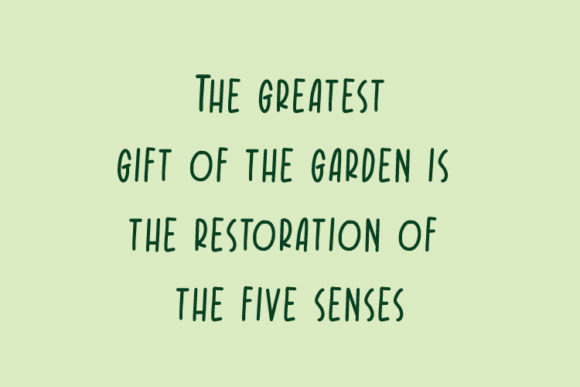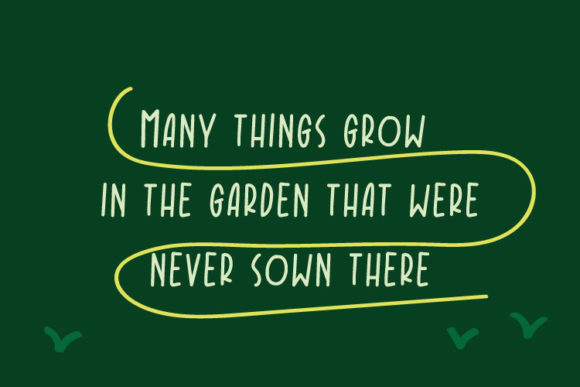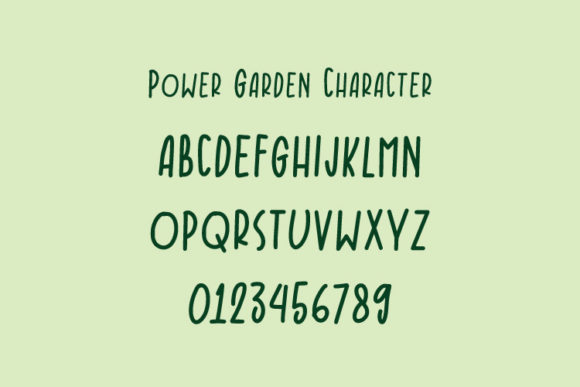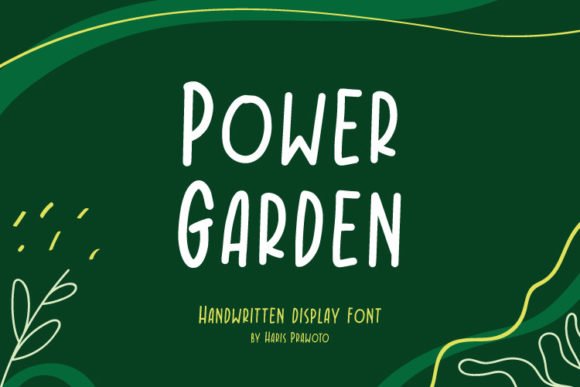
Introduction to Power Garden Font
Power Garden is a chic and trendy handwritten font.
Whether you’re looking for fonts for Instagram or calligraphy scripts for DIY projects, this font will turn any creative idea into a true piece of art .
Power Garden Font offers exceptional quality and versatility, making it a valuable addition to your design toolkit. Whether you’re creating for personal projects or commercial use, Power Garden Font delivers professional results.